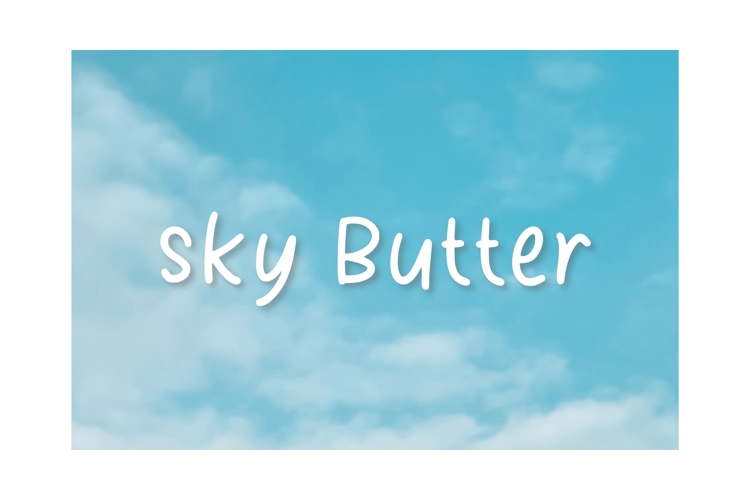
Discover the delightful charm of Sky Butter, an irresistibly cute font ideal for specializing gift cards, jazzing up posters, or adding that extra dose of magic to birthday cards. Versatile and unique, Sky Butter enhances any occasion with its playful offerings, serving as the perfect creative tool for crafting memorable sentiments. Bathed in whimsy and draped in a cheerfully casual style, Sky Butter adds a sprinkle of fun to every creation — transforming the ordinary into extraordinary with each stroke. For those seeking to sprinkle an element of enchantment on their work, embrace Sky Butter — a font where innovation dances delightfully with design.